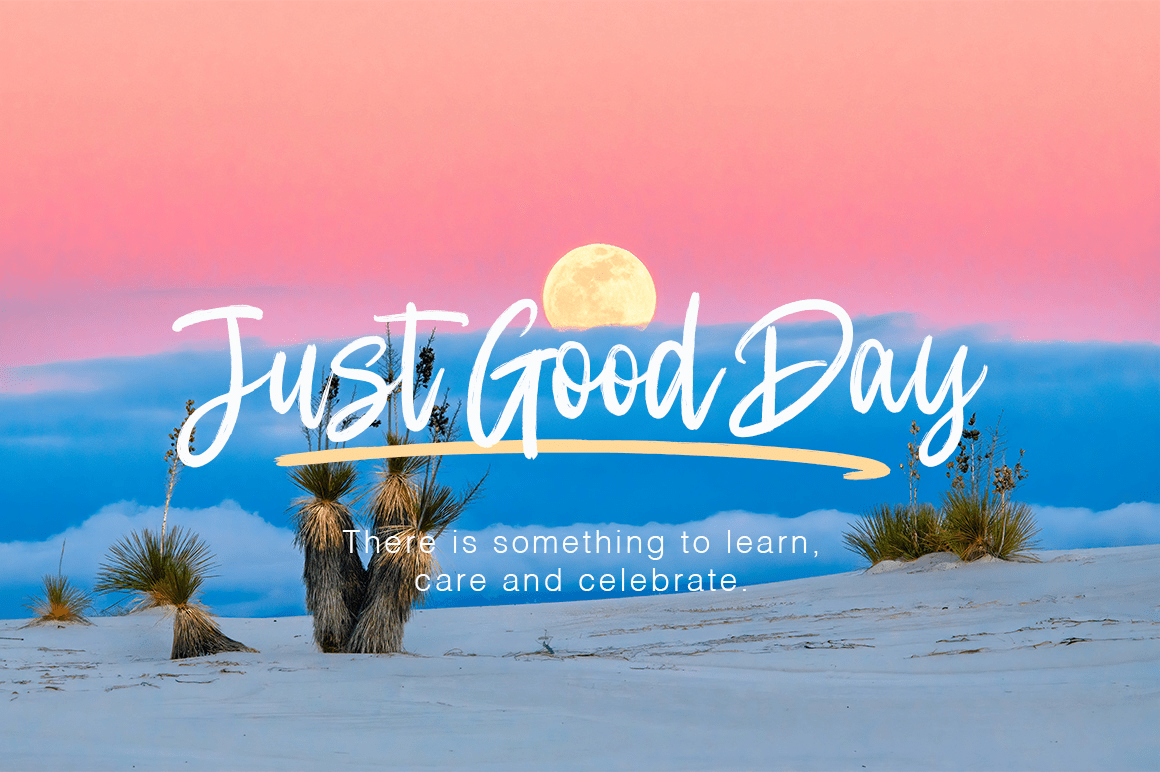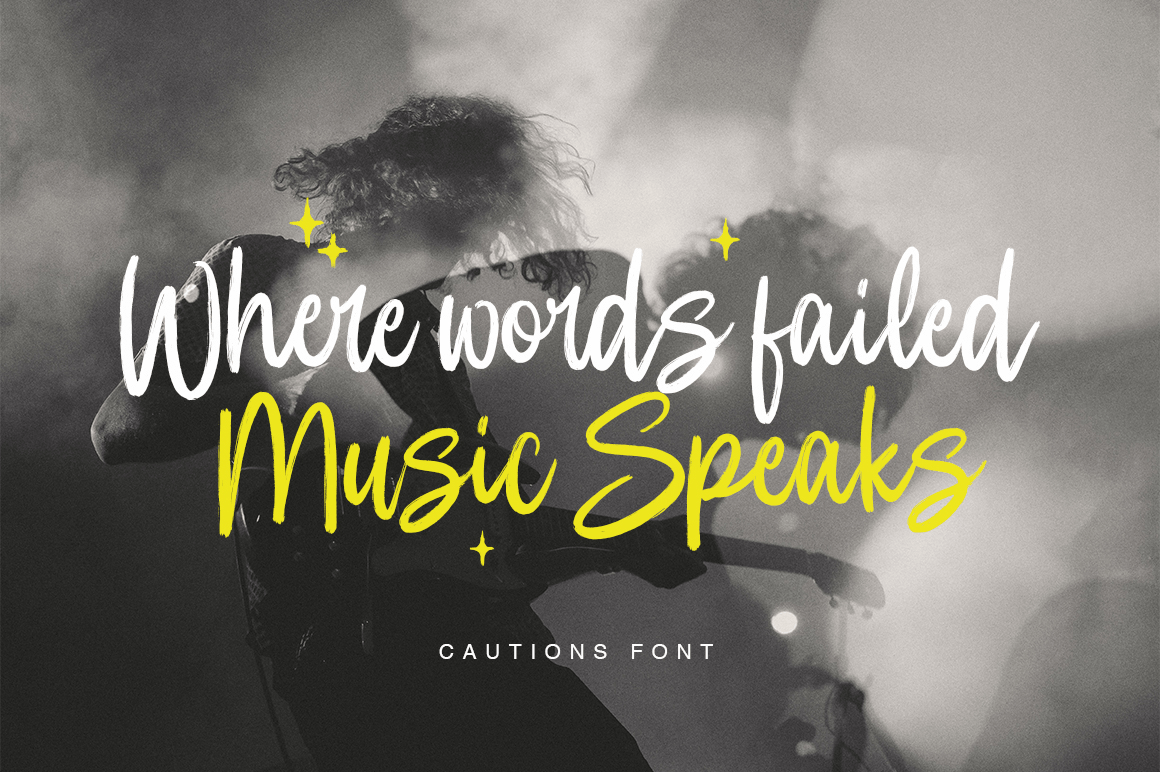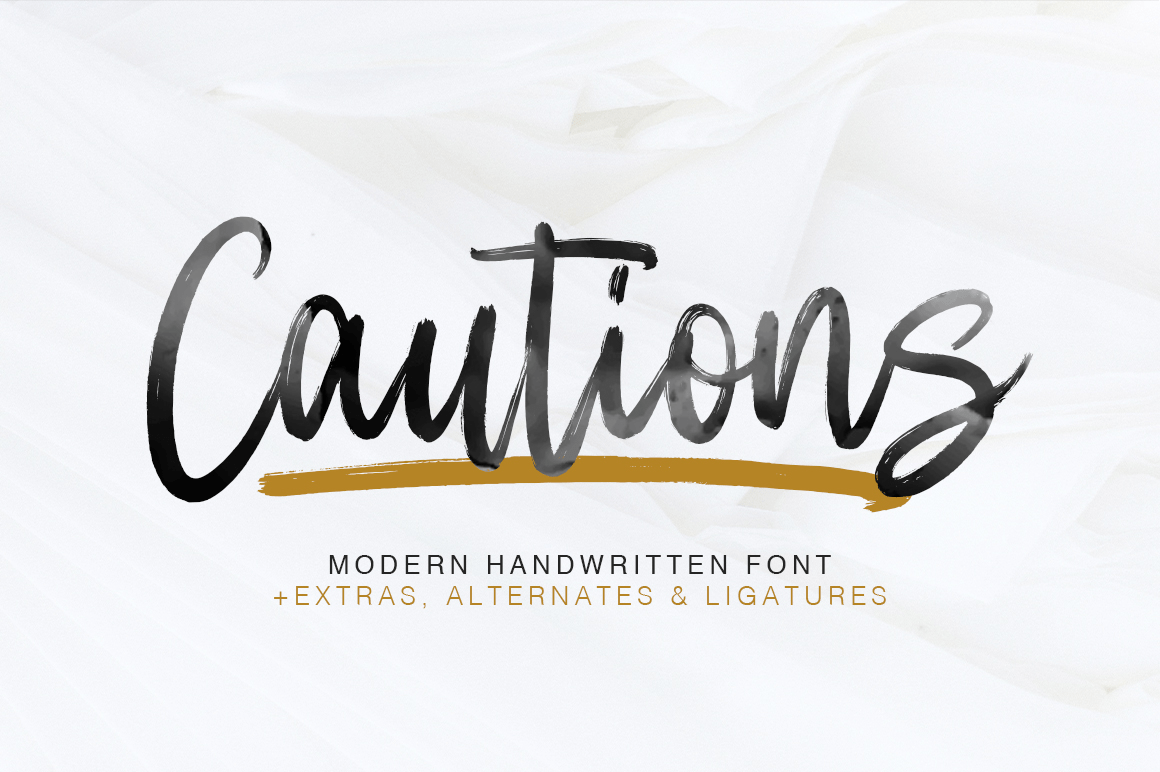
About Cautions Brush
Thanks for checking out Cautions Brush! A fabulously fun yet elegant script font with tons of energy, allowing you to create beautiful hand-made typography in an instant. With extra bouncy curves & loops, Cautions Brush is guaranteed to make your text…